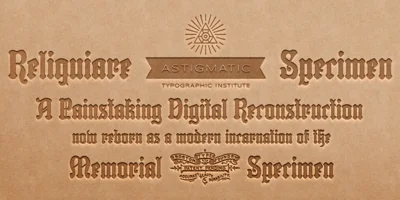
Reliquaire AOE Font
Reliquaire AOE Font is perfect for medieval manuscript reproductions, religious ceremonial designs, gothic literature publications, historical preservation materials, cathedral exhibition catalogs, ancient artifact documentation, spiritual retreat centers, and sacred cultural heritage projects.
What makes Reliquaire AOE Font exciting is its sacred antiquity that captures the reverent beauty and mystical power of ancient religious artifacts through ornate, ceremonial letterforms. This holy typeface features intricate medieval characteristics with sacred proportions that evoke the venerated dignity of religious reliquaries and illuminated manuscripts, making it ideal for projects requiring spiritual authenticity and the representation of divine heritage in their religious communications.
The Reliquaire AOE Font family includes ornamental weights with decorative elements, medieval-inspired ligatures, and sacred typography flourishes that enhance the religious aesthetic with authentic monastery styling and illuminated manuscript design elements for spiritual applications.
This sacred typeface delivers exceptional religious authenticity and medieval sophistication, making Reliquaire AOE Font a treasured resource for spiritual and historical preservation projects. The font's holy character makes it perfect for religious institutions wanting to convey sacred tradition and divine reverence in their ceremonial materials. Monasteries and religious museums particularly value its ability to communicate spiritual depth and historical sanctity instantly to faithful congregations. The reverently designed letterforms ensure optimal readability while preserving the mystical appeal of sacred artifacts across all applications from prayer books to religious art exhibitions. Whether you're creating materials for cathedral restoration projects or developing content for spiritual pilgrimage sites, this font provides the perfect combination of religious authenticity and sacred presentation. Creative professionals consistently choose this typeface for projects requiring that ideal harmony between medieval craftsmanship and contemporary spiritual practice, making it essential for religious communications that honor both ancient traditions and modern faith communities in today's spiritually diverse cultural landscape.